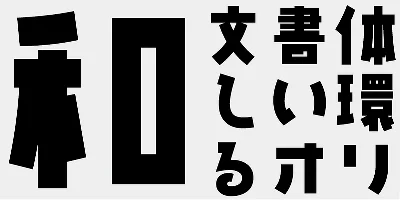
AB Karuta Bold Font
AB Karuta Bold Font is a strong and impactful typeface that brings authority and elegance to any design project. With its bold strokes and refined structure, this font is perfect for headlines, posters, branding, and editorial layouts. The commanding presence of AB Karuta Bold makes it a go-to choice for designers aiming to create a memorable visual impression.
This font stands out not only for its aesthetics but also for its functionality. It supports multiple languages and comes with a complete set of glyphs, making it suitable for diverse design needs. Whether you're crafting digital banners, print ads, or logo designs, AB Karuta Bold adapts beautifully across formats while maintaining clarity and boldness.